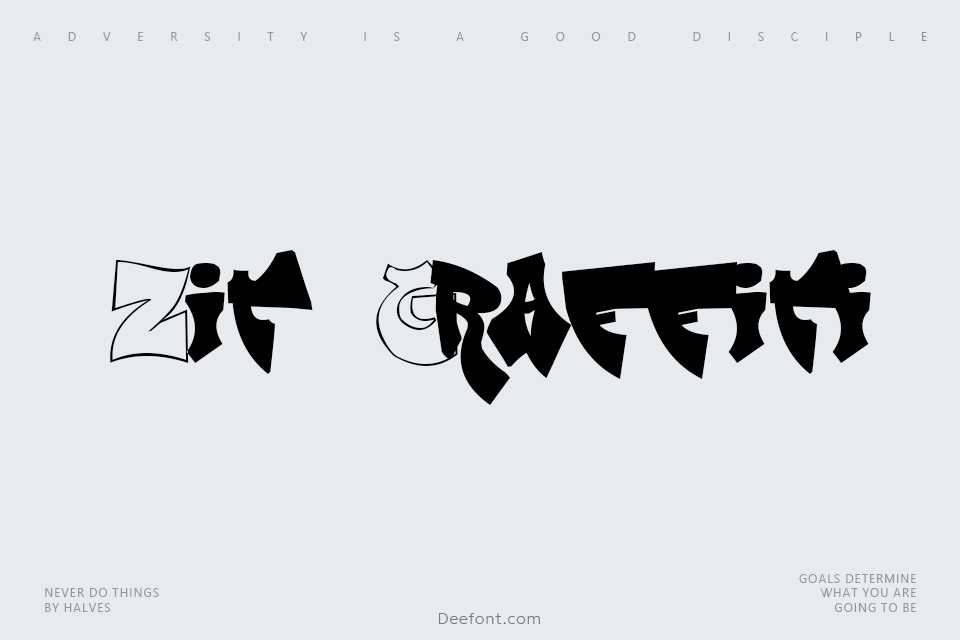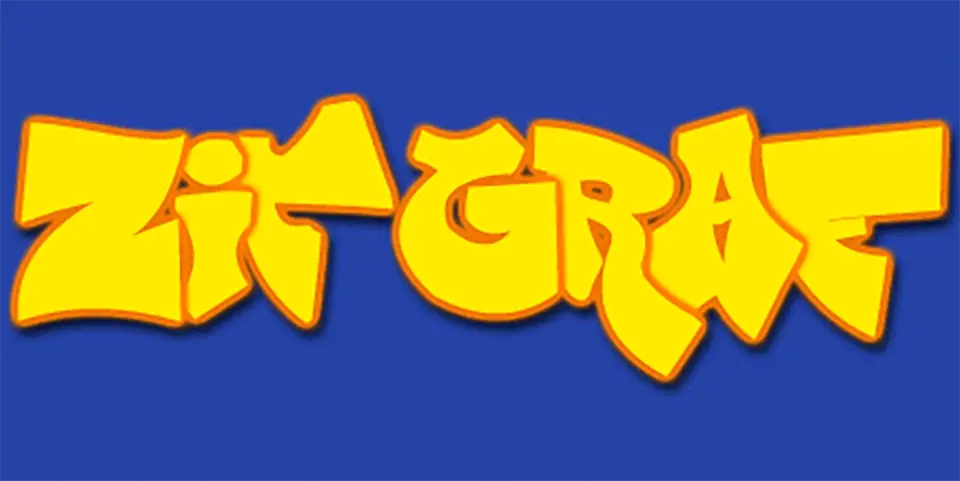
Zit Graffiti Font
Zit Graffiti is a bold and edgy graffiti-style font featuring sharp edges and soft curves, delivering a raw and authentic urban feel. This eye-catching typeface is perfect for creating attention-grabbing headlines, posters, flyers, and album covers. With its distinctive street art aesthetic, it brings a unique, energetic character to creative projects that demand visual impact and contemporary urban design.